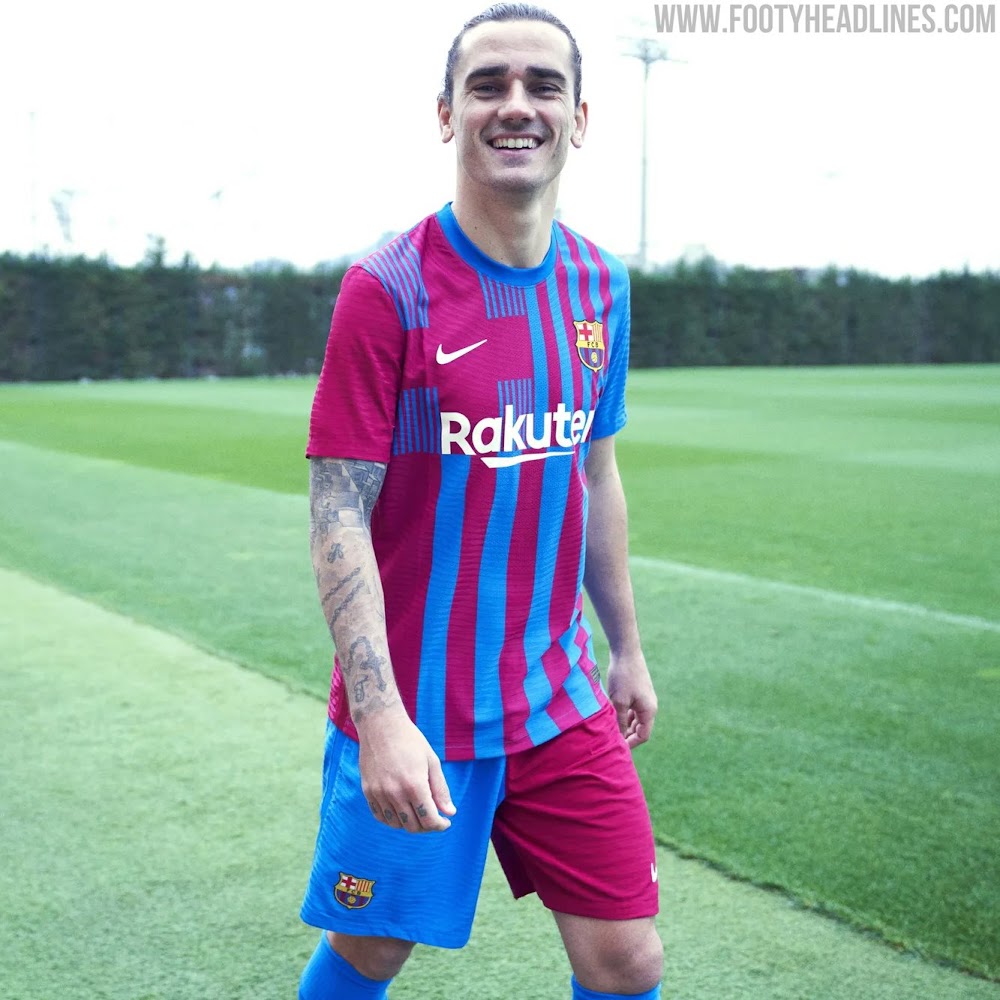
FC Barcelona 21-22 Home Kit Font To Be 'White'
The new FC Barcelona 2021-22 home kit introduces not only a fresh new design but also new colors.
FC Barcelona 21-22 Home Kit Applications - 'Pale Ivory' That Looks Almost White
Barca's 2021-22 home kit combines 'Soar / Noble Red / Pale Ivory'. The blue and red colors are lighter than those of the previous shirt, while Pale Ivory is an off-white color that resembles ivory, the material which is made from the teeth and tusks of animals.
'Pale Ivory' color looks like white in real life
However, Nike's 'Pale Ivory' color looks like white in real life such as in the in-store image.
Apart from the color, the La Liga 21-22 FC Barcelona font is the same as the yellow one before - the standard La Liga typeface.